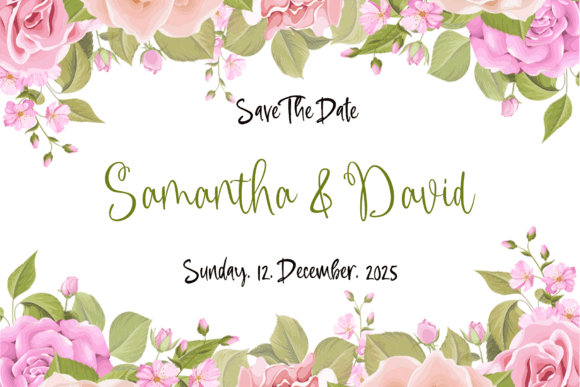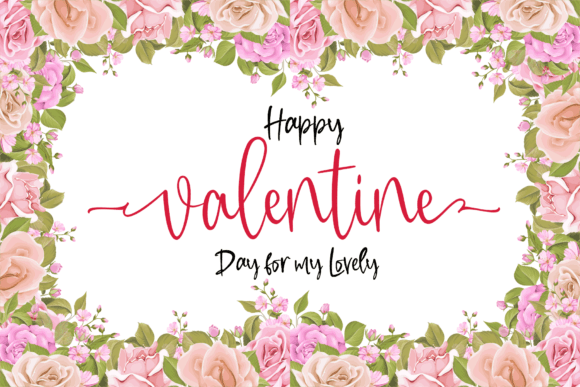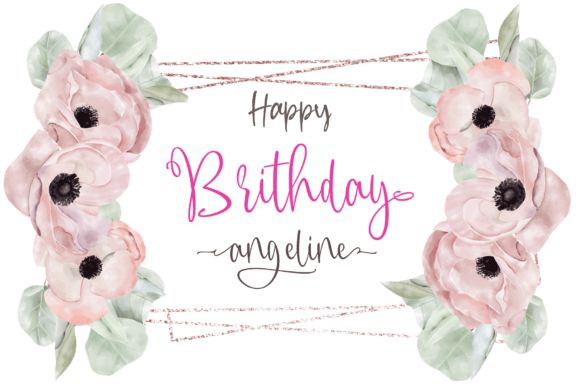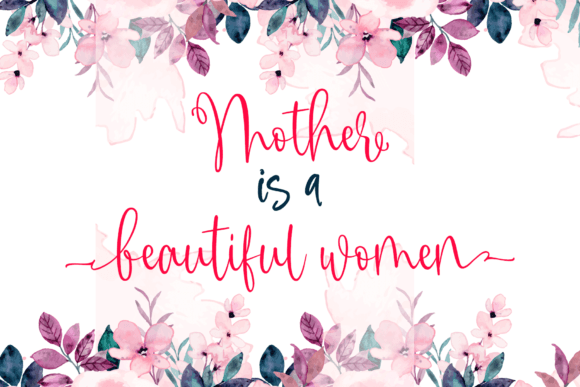
Introducing Calligraphe Font: Elevate Your Designs with Elegance
Are you a designer or crafter looking for a font that exudes elegance and sophistication? Look no further than Calligraphe Font, a lovely modern calligraphy typeface that can elevate your designs to new heights. With its fluid strokes and beautiful lettering, Calligraphe is perfect for a wide range of projects, from headings and logos to wedding invitations and signage.
What is Calligraphe Font?
Calligraphe Font is a modern calligraphy typeface that is designed to bring a touch of elegance and sophistication to your designs. Its fluid strokes and beautiful lettering make it perfect for creating stunning headings, logos, and other graphical elements. Whether you’re a professional designer or a crafty DIY enthusiast, Calligraphe Font is a versatile and stylish choice that can help you create beautiful and eye-catching designs.
Uses for Calligraphe Font
One of the best things about Calligraphe Font is its versatility. It can be used for a wide range of projects, including:
- Headings and titles: Add a touch of elegance to your headings and titles with Calligraphe Font’s beautiful calligraphy.
- Logos: Create a stunning logo for your business or brand with Calligraphe Font’s unique and stylish lettering.
- Wedding invitations: Make your wedding invitations truly special with Calligraphe Font’s elegant and sophisticated calligraphy.
- T-shirts and apparel: Add a touch of style to your t-shirts and apparel with Calligraphe Font’s beautiful lettering.
- Letterheads and stationery: Elevate your letterheads and stationery with Calligraphe Font’s elegant and professional calligraphy.
- Signage and labels: Create eye-catching signage and labels with Calligraphe Font’s bold and stylish lettering.
- News and posters: Add a touch of elegance to your news and posters with Calligraphe Font’s beautiful calligraphy.
- Badges and awards: Create stunning badges and awards with Calligraphe Font’s unique and stylish lettering.
Why Choose Calligraphe Font?
So why choose Calligraphe Font for your design projects? Here are just a few reasons:
- Elegant and sophisticated: Calligraphe Font’s beautiful calligraphy adds a touch of elegance and sophistication to any design.
- Versatile: Calligraphe Font can be used for a wide range of projects, from headings and logos to wedding invitations and signage.
- High-quality: Calligraphe Font is a high-quality typeface that is designed to produce stunning results.
Tips for Using Calligraphe Font
Here are a few tips for using Calligraphe Font in your design projects:
- Use it sparingly: Calligraphe Font is a beautiful and elegant typeface, so use it sparingly to add impact to your designs.
- Pair it with other fonts: Calligraphe Font pairs well with other fonts, so experiment with different combinations to find the perfect look for your design.
- Experiment with colors: Calligraphe Font looks great in a variety of colors, so experiment with different colors to find the perfect look for your design.
- Pay attention to spacing: Make sure to pay attention to spacing when using Calligraphe Font, as it can make a big difference in the overall look of your design.
In conclusion, Calligraphe Font is a lovely modern calligraphy typeface that is perfect for designers and crafters looking to add a touch of elegance and sophistication to their designs. With its versatility, ease of use, and high-quality lettering, Calligraphe Font is a great choice for a wide range of projects. Whether you’re creating headings, logos, wedding invitations, or signage, Calligraphe Font is sure to impress.